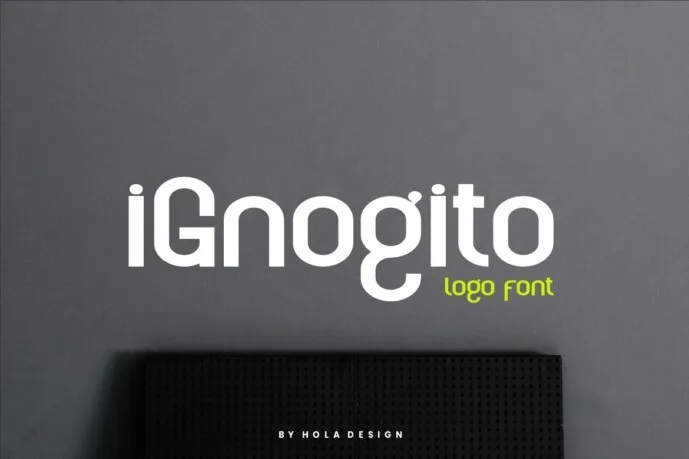
Ignogito Font
Ignogito font is unique. Made to go for your designs like labeling, movie scene, poster, movie title, concerts, album covers, logos and so on. The free version offers all the letters in both upper and lower case, plus a few symbols as well.
Ignogito Sans Serif Font